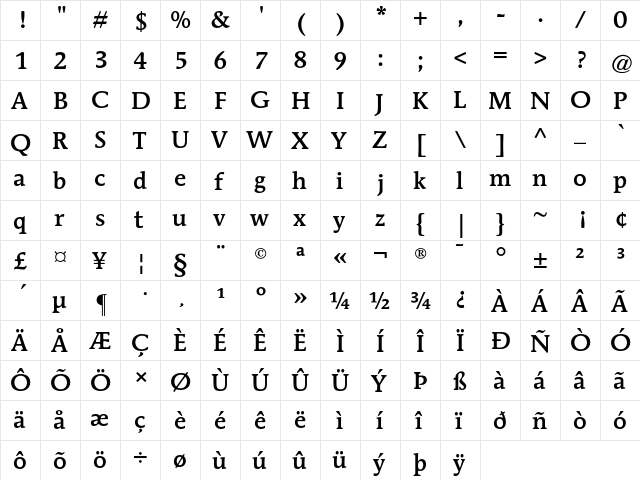
Mendoza Roman AT Medium Regular
Design Context for Mendoza Roman AT Medium Typeface
Mendoza Roman AT Medium is a composed and adaptable typeface that performs quietly and consistently across a wide range of design contexts.